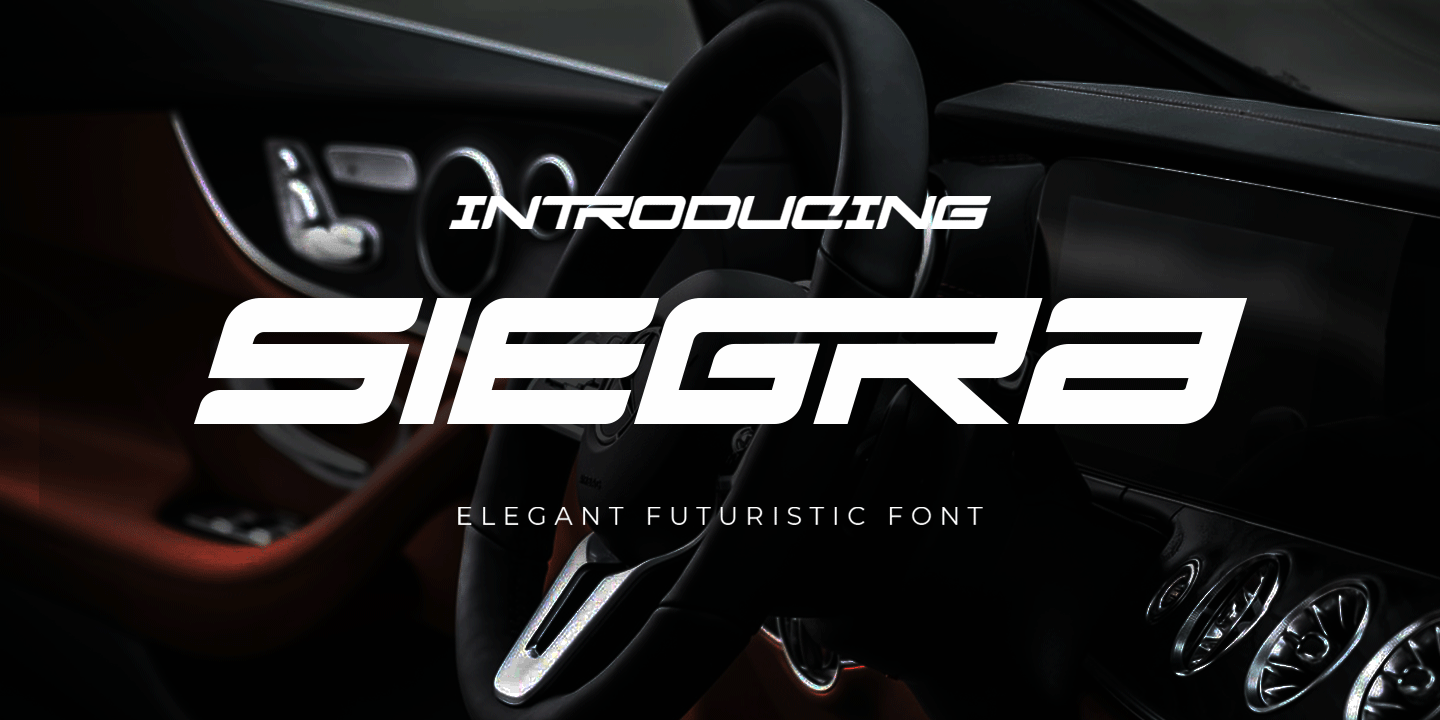
Unleash modern sophistication with Siegra Font Free Download – a sleek geometric sans-serif that masterfully balances technical precision with humanist warmth. This versatile typeface delivers crisp clarity across all platforms, making it ideal for brands that value both professionalism and approachability.
Why Siegra Excels:
7 Weight System from Hairline to UltraBlack
True Italics with optimized angles
Enhanced Screen Legibility for UI/UX
Multilingual Support (Latin, Cyrillic, Greek)
Premium Applications:
Corporate identity systems
Luxury real estate marketing
Editorial design with impact
Sophisticated web interfaces
Standard and tabular numerals
Case-sensitive punctuation
Multiple stylistic sets
Design Tip: Use the lighter weights for elegant interfaces, heavier weights for commanding headlines. The italics add dynamic movement to financial reports.